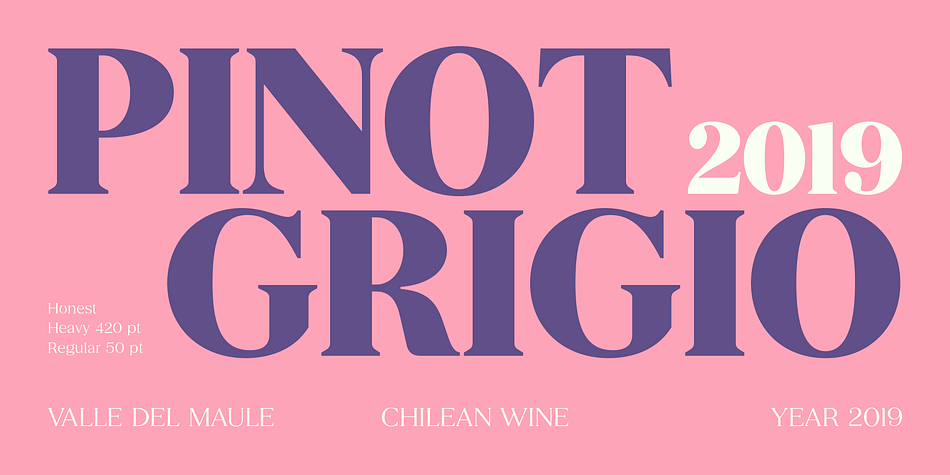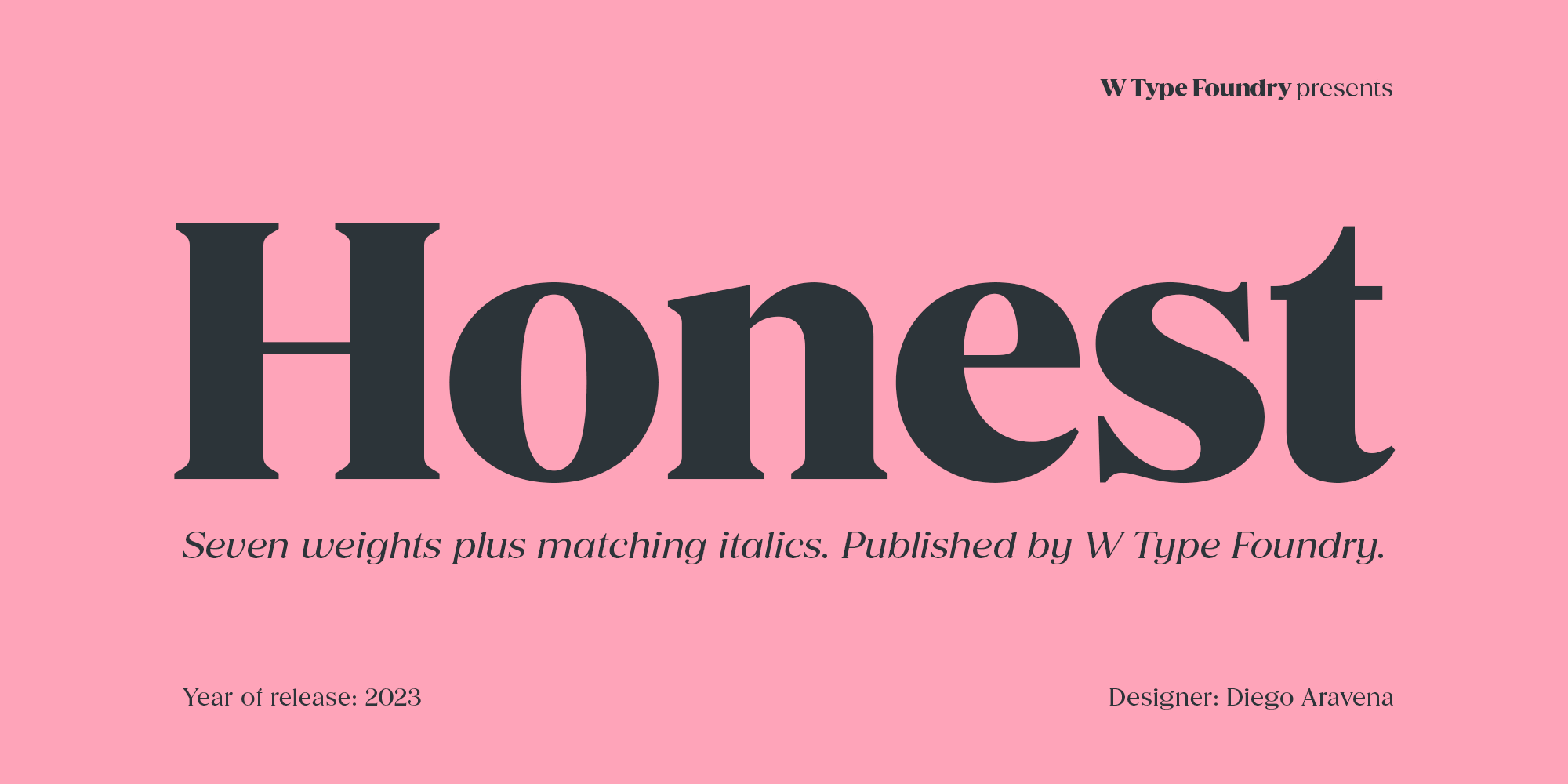
Honest
Designed by Diego Aravena, Honest is a display serif, retro and serif font family. This typeface has fourteen styles and was published by W Type Foundry.
Honest draws inspiration from the serif fonts prevalent in print media during the 1970s and 1980s. Its letter shapes are well-suited for prominent uses like logos and striking headlines due to their distinctive style. The font’s large x-height makes it suitable for tight leading in headlines.
Honest offers a variety of options, including seven different weights and two styles: Standard and Italic.
Foundry W Type Foundry
Styles Display Serif, Retro, Serif
Designer Diego Aravena